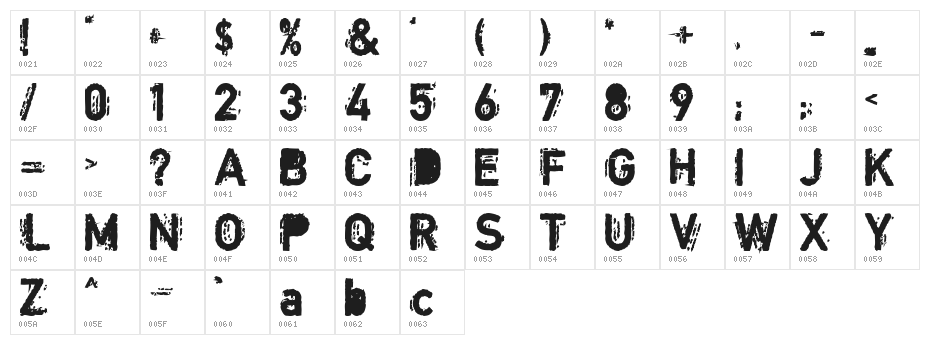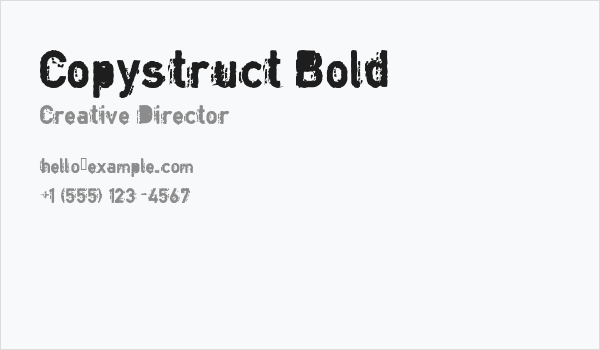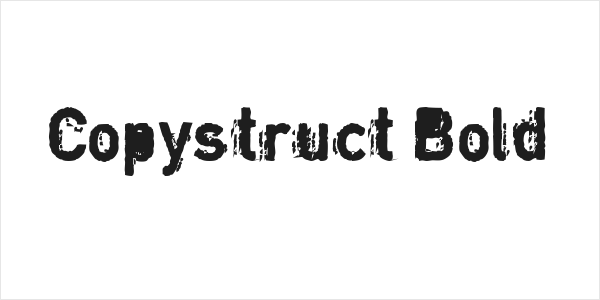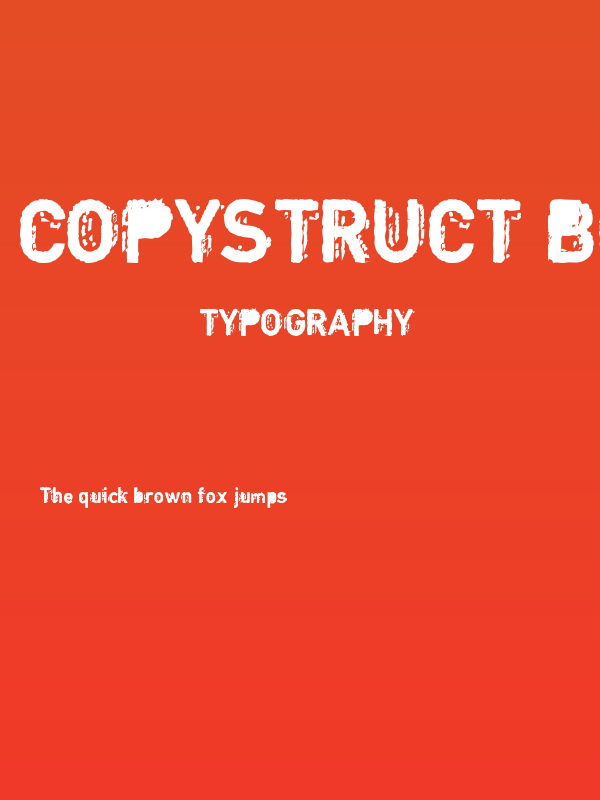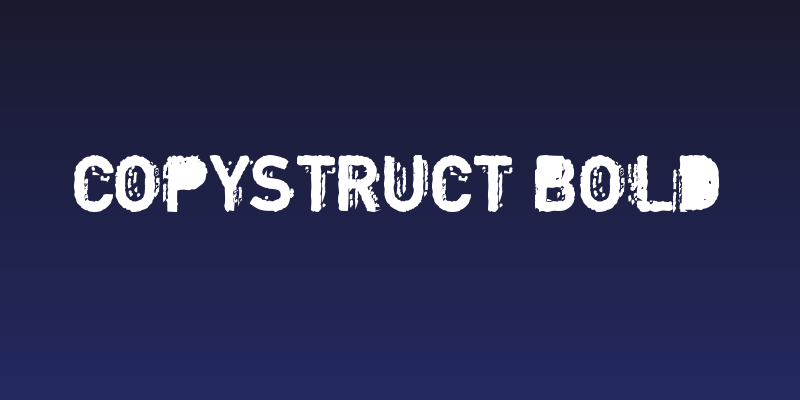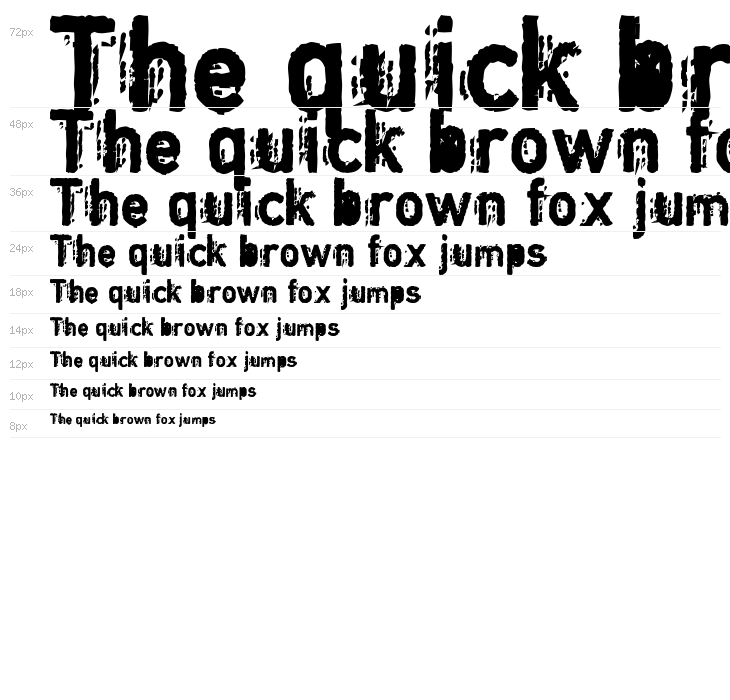
Copystruct Bold Font
Copystruct Bold Description
This font features a bold, distressed style with a grunge aesthetic. The characters are heavily textured, giving them a worn and rugged appearance. Each letter and number appears to have been weathered, with uneven edges and a rough surface that adds to the overall gritty look. The uppercase and lowercase letters maintain a consistent boldness, while the numerals and special characters follow the same distressed pattern. This font is ideal for projects that require a raw, edgy feel, such as album covers, posters, or urban-themed designs.
| Overall Style | Grunge, Edgy, Rugged |
| Proposed Projects | Album covers, posters, urban-themed designs, streetwear branding. |